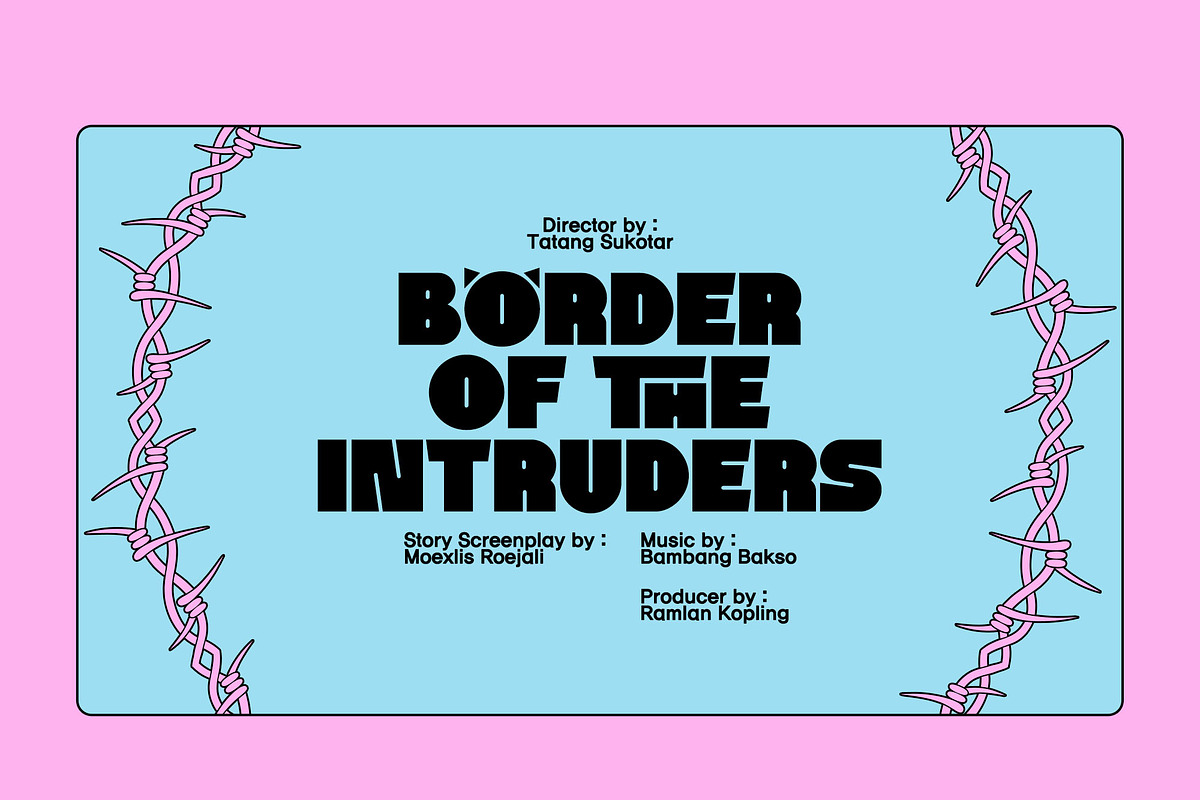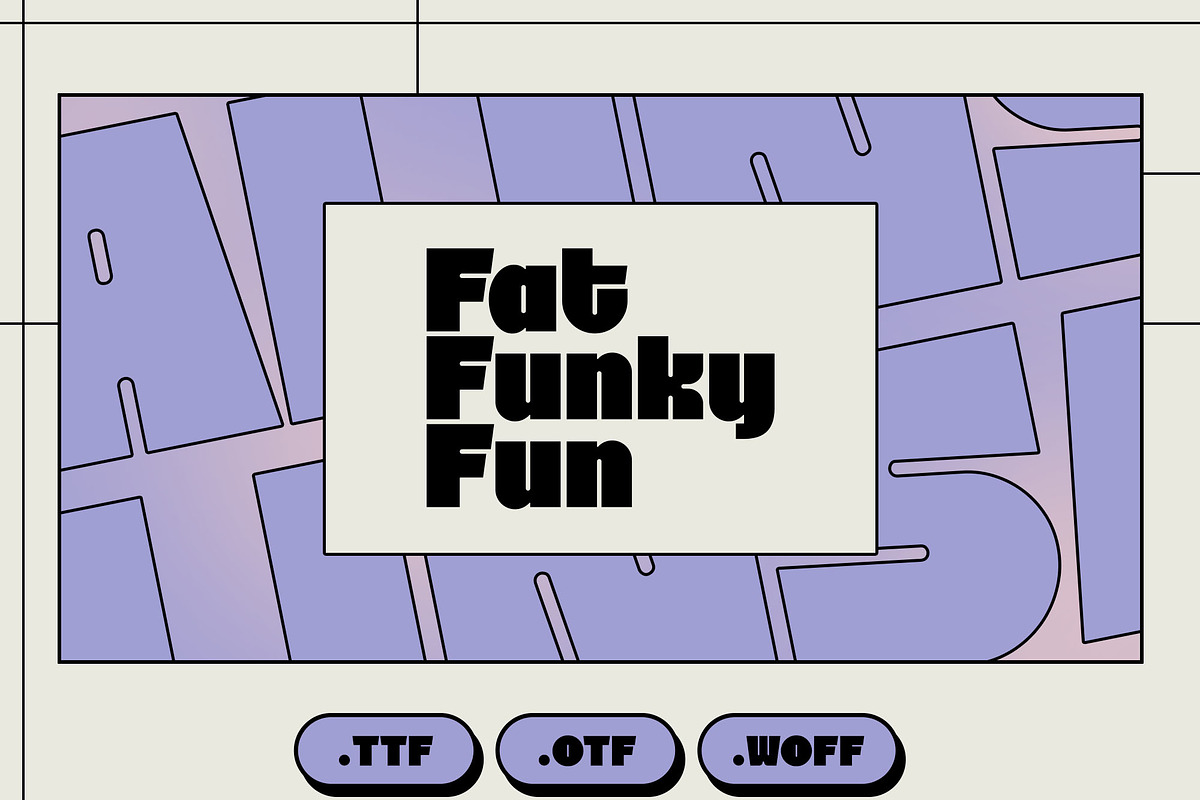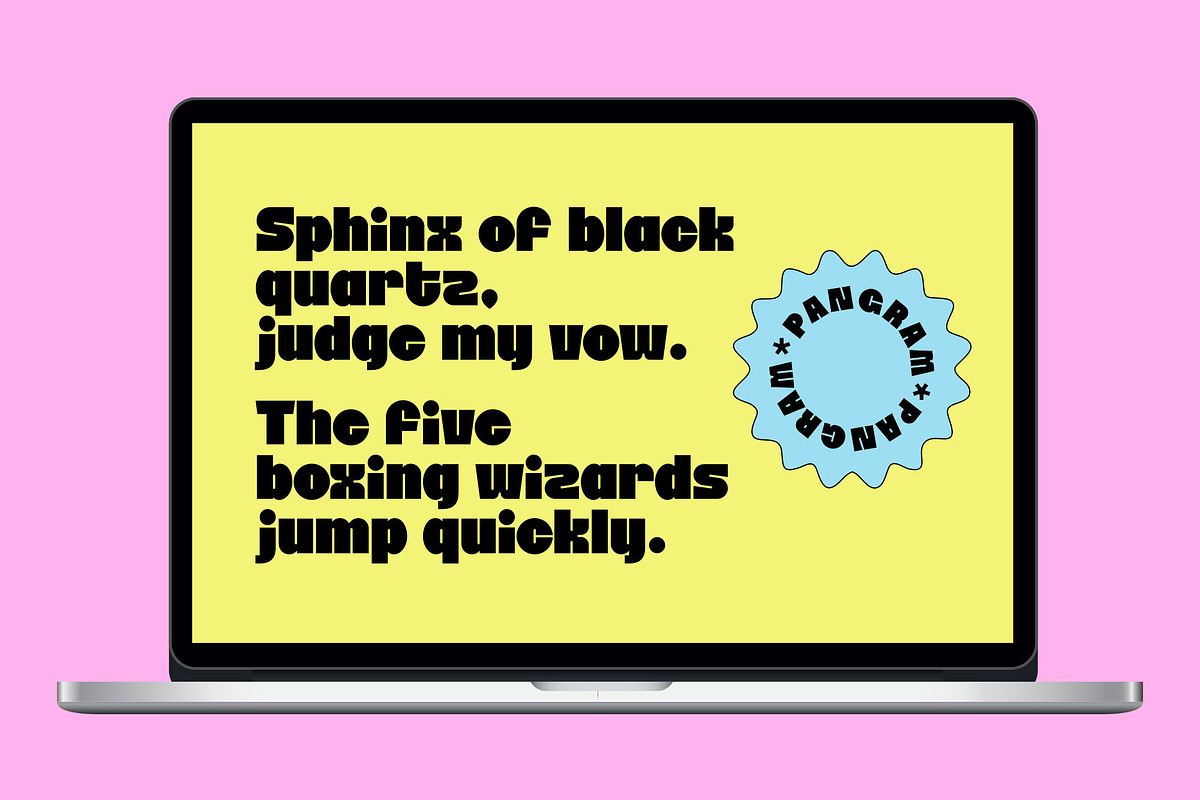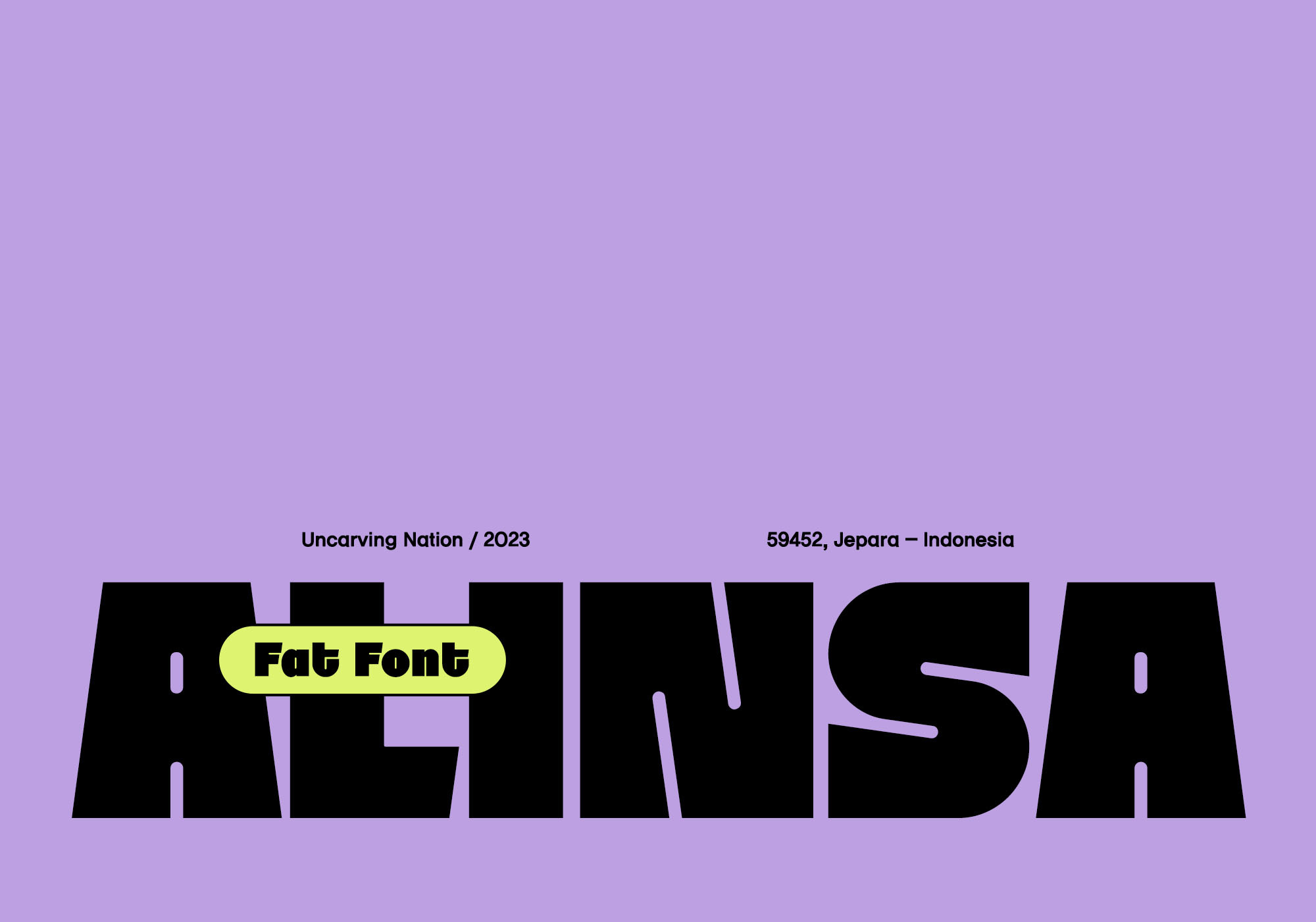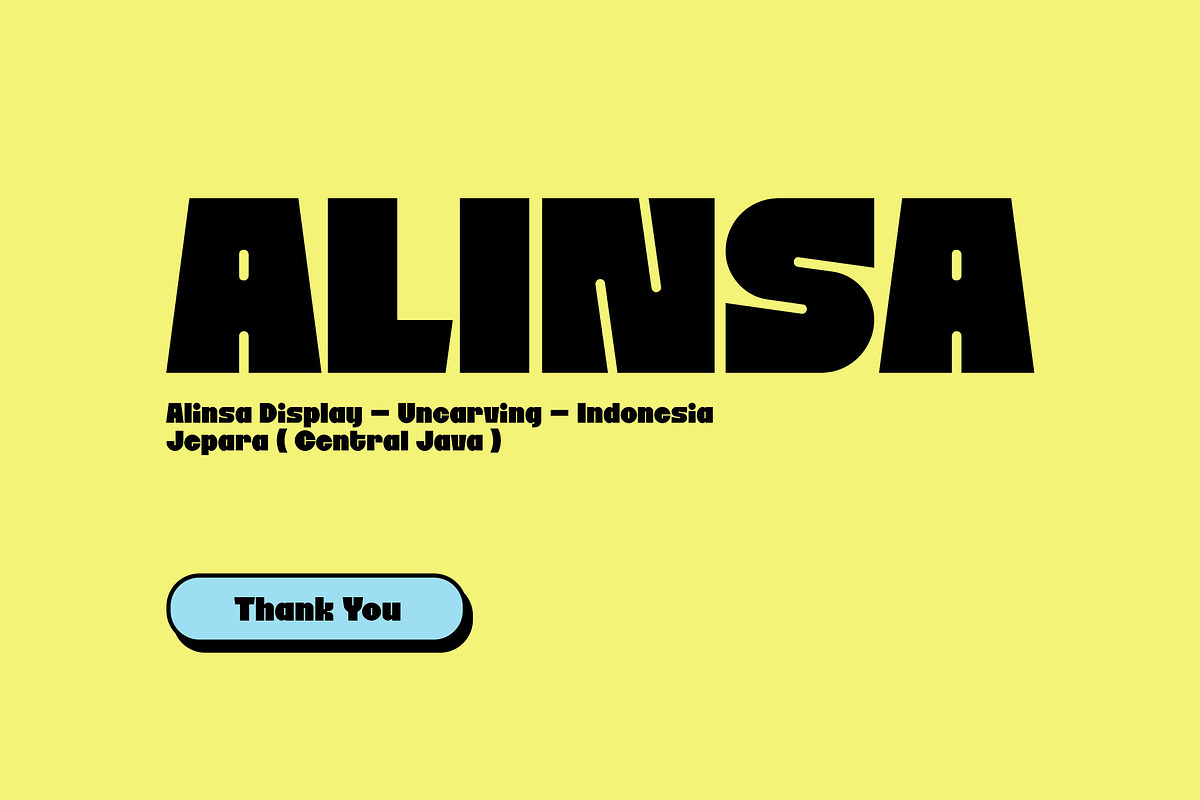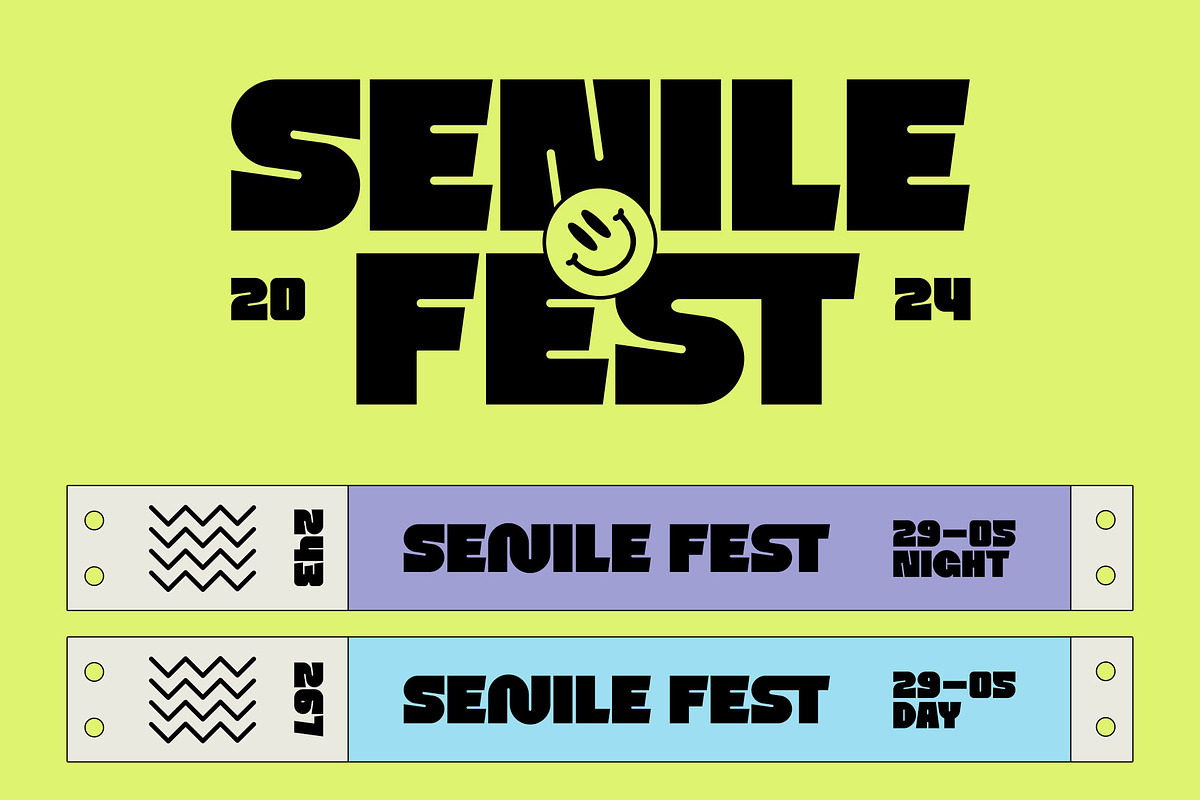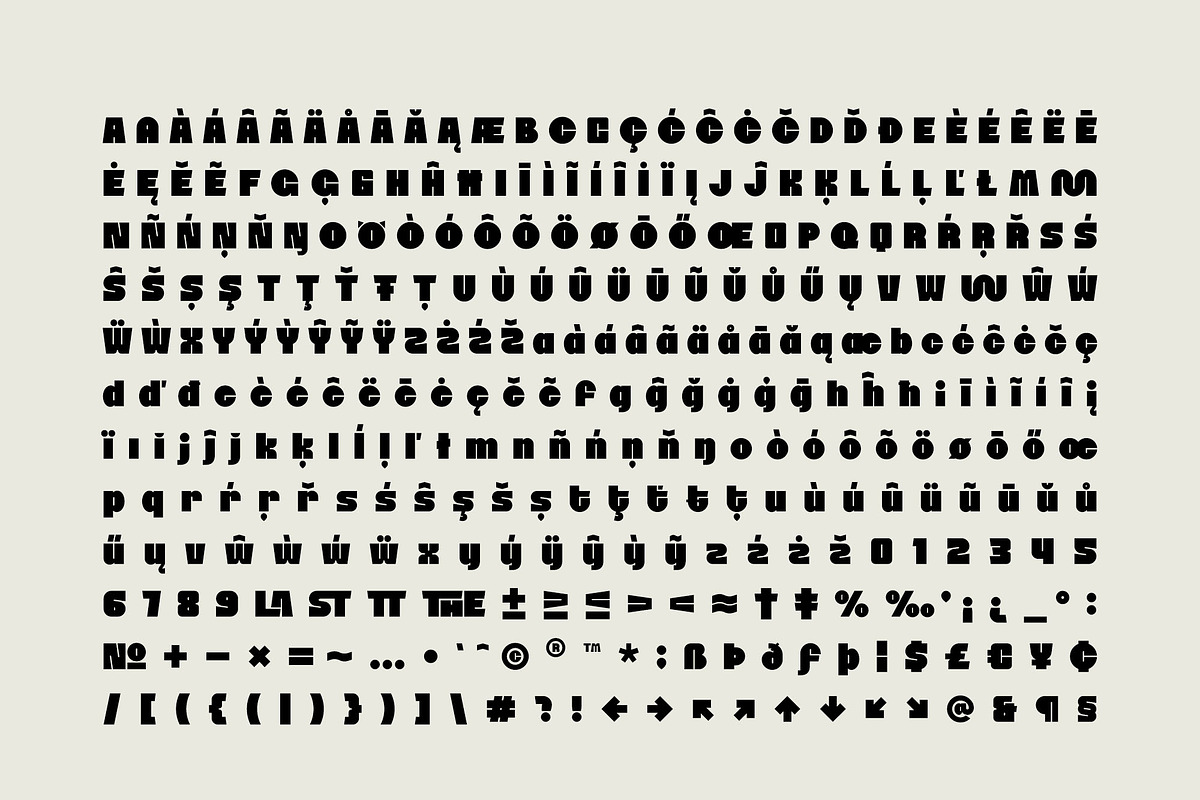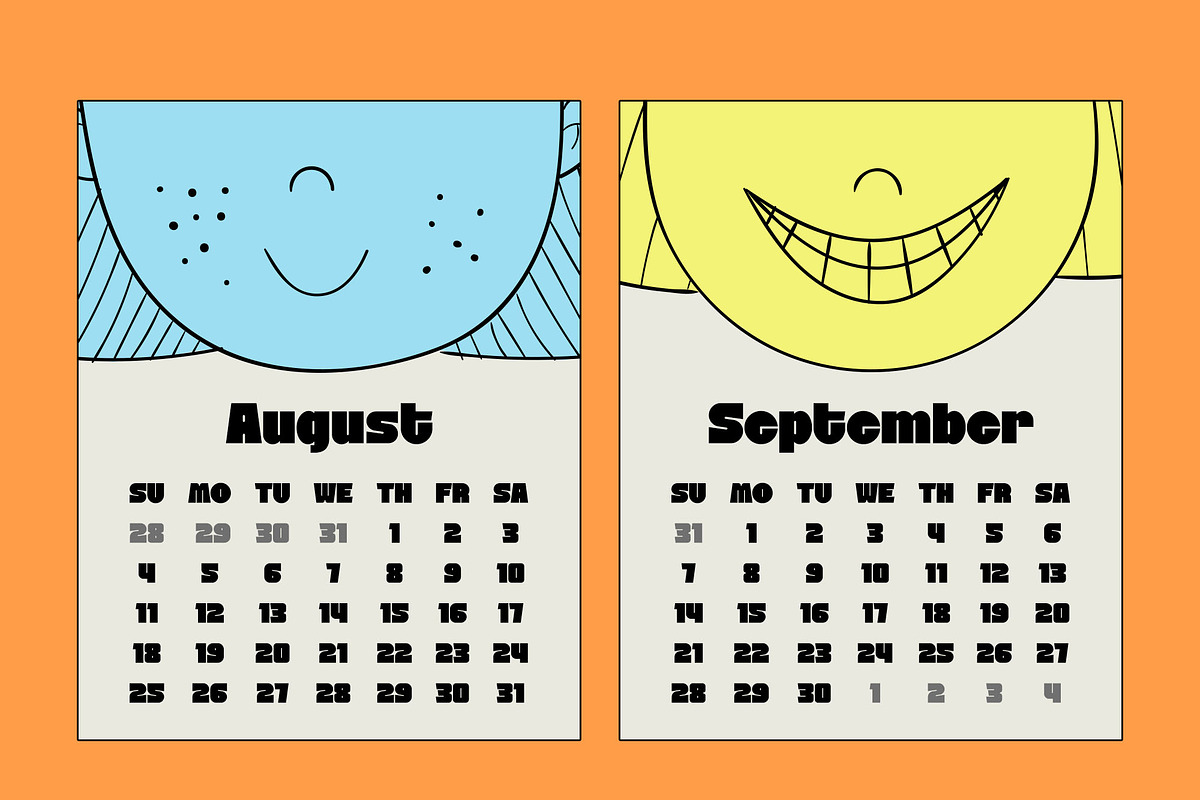
Alinsa - Display Font
"Alinsa" is a font designed by uncarving Inspired by a simple and bold shape that is consistenty designed, combining thin, thick and pointed elements. Delivers new visual in a balanced kerning display. Genesis can be used even for commercial you may not share this font, neither on websites or to other computers, unless uncarvings permission is given.